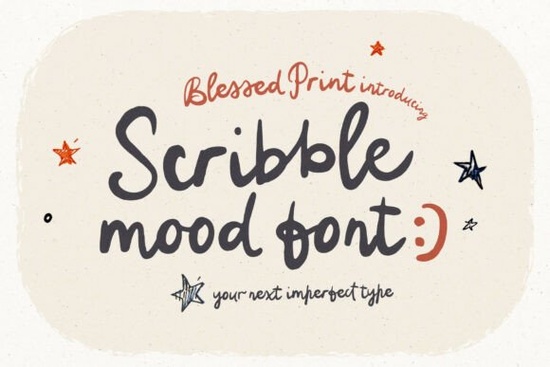
If you’ve been hunting for a font that feels like a well-loved sketchbook coming to life, Scribblemood Regular Font is worth every second of your time. This quirky handwritten typeface blends messy pen strokes, playful doodles, and a huge set of 486 glyphs into a single PUA-encoded file. Designers, crafters, and small business owners who want a warm, human touch without actually picking up a marker love how quickly it adds personality to a project.
Why does this font feel so playful and organic?
The secret lies in how Scribblemood Regular handles its letterforms. Standard handwriting fonts often repeat the same shapes, which can look stiff. This one uses contextual alternates that automatically style the last letter of every word differently, just like real penmanship where a final stroke relaxes. You also get ligatures and stylistic alternates that create a bouncy, irregular rhythm exactly what you expect from a doodle-driven script. If you want a specific alternate, simply type a1 or A1 after any letter to trigger it, giving you manual control without leaving your design software.
What kind of built‑in extras does it include?
Beyond the alphabet, Scribblemood Regular is loaded with childlike doodle icons. You’ll find hand-drawn food, playful checkmarks, arrows, banners, and even romantic little motifs. Need decorative numerals for a wedding table number? Type I=, II=, IV= to pull up Roman numeral forms instantly. Everything sits inside the font file, so there’s no need to hunt down separate clipart sets.
Who gets the most out of a scribble‑style font?
The short answer: anyone who wants to feel like a kid again. But more specifically, it’s a natural fit for:
- Playful wedding invitations and signage the doodle icons become instant table numbers or cute “reserved” tags.
- Children’s book illustrators and teachers looking for a text style that matches a young, imaginative tone.
- Social media content creators who need quote graphics that feel like a journal entry, not a polished ad.
- Small bakery or café branding the food doodles and irregular script make packaging feel artisanal.
- Greeting card and stationery designers who want a messy-but-readable handwriting vibe.
How do you pair this messy script with other fonts?
Scribblemood Regular’s offbeat energy shines when balanced with something more structured. For a clean contrast on a wedding suite, try setting the names in a graceful Saturday Script and using the scribble style for the tagline or doodle accents. If your project leans toward a polished preppy aesthetic, a preppy cute font can soften headers while Scribblemood handles the playful bits. Birthday designs often need two voices a festive Happy Birthday Duo can own the main greeting, and Scribblemood can sprinkle the date and little cake icons around it. Even food-related packaging can get a lift by mixing in the bold, textured lines of a Salty Dish Line style for product names, letting the scribble script carry the quirky flavor descriptors.
What makes the alternates so easy to use?
Instead of memorizing complex keystrokes, you just follow two simple rules. First, add the number 1 after any letter to swap in an alternate shape. Second, the last letter of every word automatically becomes a styled “ending” version, which saves you from fixing tails manually. This system works brilliantly when you need to mock up a design quickly in Canva or while heat-pressing a tote in Cricut. You spend less time tweaking and more time making.
Is it suitable for non‑English projects?
Absolutely. Scribblemood Regular includes multilingual support that covers a wide range of Latin-based languages, so you can set words in French, Spanish, German, and many others without losing the hand-sketched feel. The accent marks and special characters stay consistent with the messy script rhythm, which is often a weak point in niche display fonts.
Quick way to test if this style fits your brand
Before committing to a full product launch, try this: open a blank canvas in Canva, type your shop name, and add a couple of doodle icons directly from the font. Add 1 after a few letters to see how the alternates change the mood. If the result makes you smile because it looks actually hand-done, you’ve found the right script. From there, pair it with a simple sans-serif for body text, and you’ll have a complete look that doesn’t need any external illustration skills.